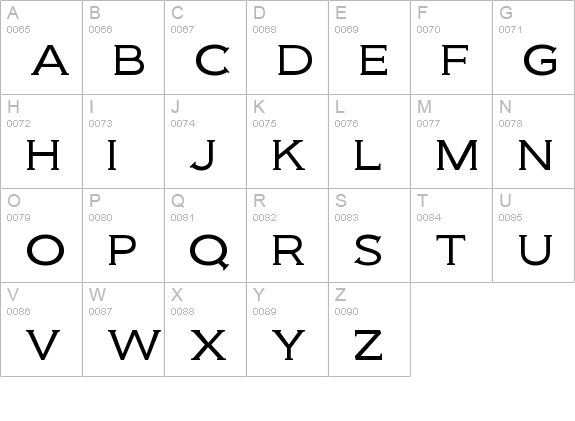
Biondi Light is a refined, elegant variant in the Biondi typeface family \xE2\x80\x94 well suited to elegant body text, refined sub-headings, and luxury branding.
Biondi Light font is a sleek and modern typeface that exudes elegance and sophistication. With its clean lines and minimalist design, this font is perfect for adding a touch of sophistication to any project. Its light weight gives it a delicate and airy feel, making it ideal for use in headings, titles, and other display text. The best part? Biondi Light font is completely free to download at FontsMarket.com. Whether you're working on a website, a branding project, or any other design endeavor, this font is sure to elevate your work to the next level. Don't miss out on this stylish and versatile typeface – download Biondi Light today and see the difference it can make in your designs.